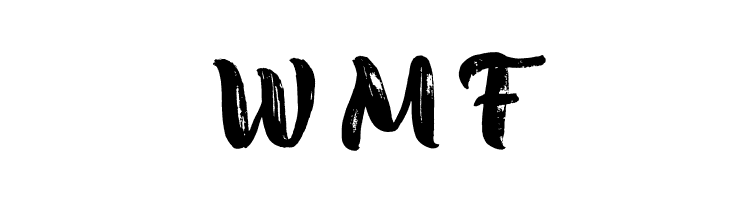
A modern, clean font with uniform structure and crisp lines.
A bold, geometric font with a three-dimensional effect and modern appeal.
A bold, angular font with a modern and dynamic style.
A playful, hand-drawn font with tall, narrow letters and a whimsical style.
A modern, grid-based italic font with a digital, pixelated style.
A lively, expressive handwritten font with fluid strokes and artistic flair.
A playful, bold outline font with whimsical curves and rounded edges.
A bold, geometric font with a futuristic and digital aesthetic.
A bold, futuristic font with a leftward slant and high contrast strokes.
A bold, distressed font with a rugged, textured appearance.